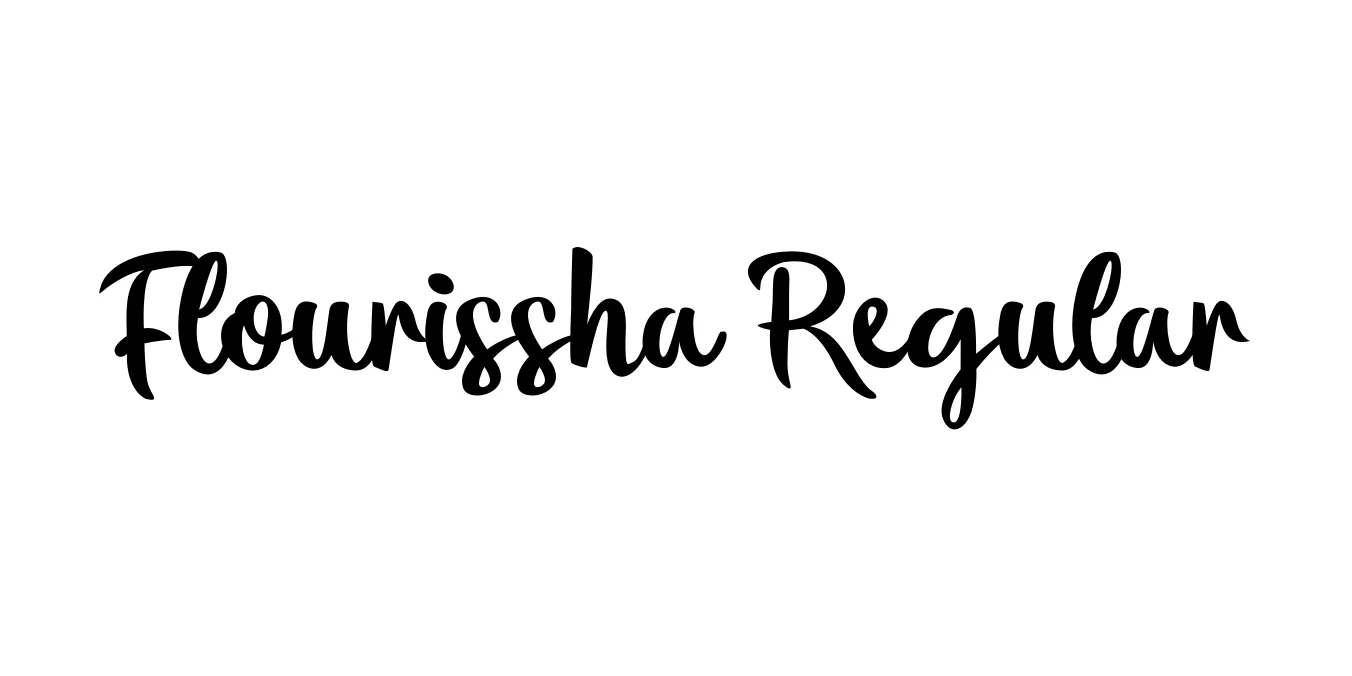
Flourissha Regular
Designed by Sronstudio
Flourissha Regular is a sophisticated and elegant script typeface that embodies the fluidity of modern calligraphy. Characterized by its sweeping strokes and delicate flourishes, this font was designed to bring a touch of grace and hand-drawn authenticity to digital and print media. Its refined curves and balanced letterforms make it a standout choice for designers looking to inject a sense of luxury and femininity into their creative compositions.
This typeface is particularly popular in the wedding and boutique branding industries due to its romantic and upscale aesthetic. Beyond invitations, Flourissha Regular is frequently used for high-end packaging, logo design, and editorial headers. The font's versatile nature allows it to work seamlessly in both minimalist layouts and more ornate, decorative contexts, ensuring it remains a timeless asset in any typography collection.
Flourissha Regular Best Uses
Perfect for invitations, save-the-dates, and table cards.
Ideal for fashion labels, jewelry shops, and luxury cosmetic logos.
Excellent for aesthetic Instagram quotes and lifestyle blog headers.
Great for high-end product boxes and labels that require a personal touch.